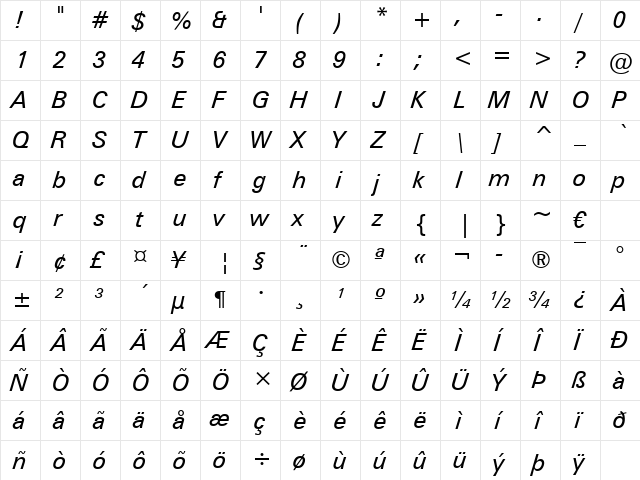
Zurich WGL4 BT Italic
Design Context for Zurich WGL4 BT Typeface
Zurich WGL4 BT offers clean, dependable letterforms without strong stylistic allegiance, making it a practical choice for designers who need flexibility. The slanted form adds forward momentum and visual energy.
Pro Tip: Try Zurich WGL4 BT for annotation and caption copy alongside an upright companion — the contrast in angle creates a dynamic but ordered typographic system.